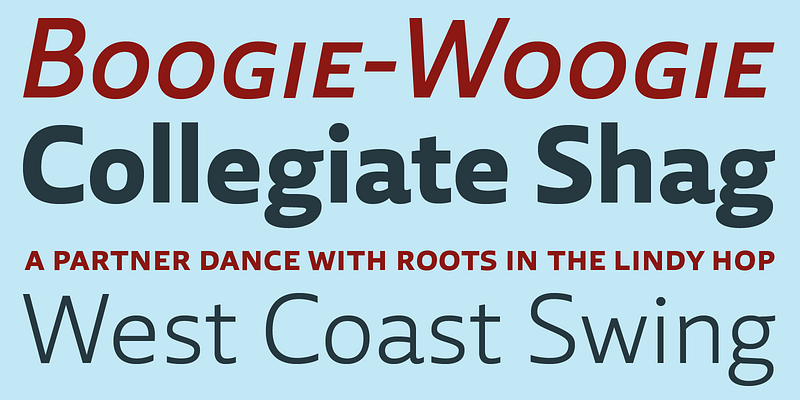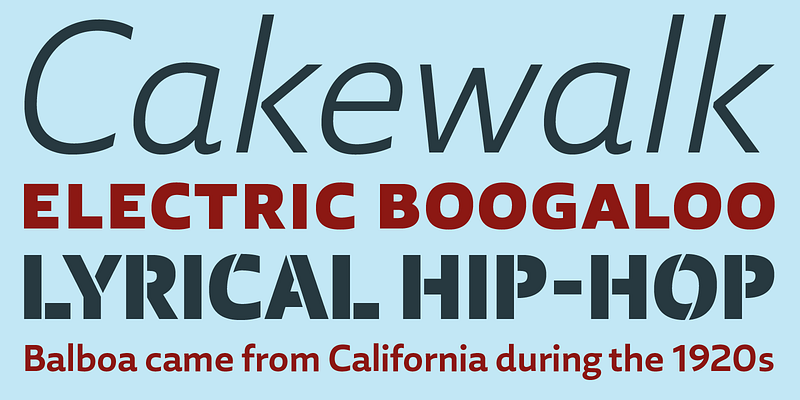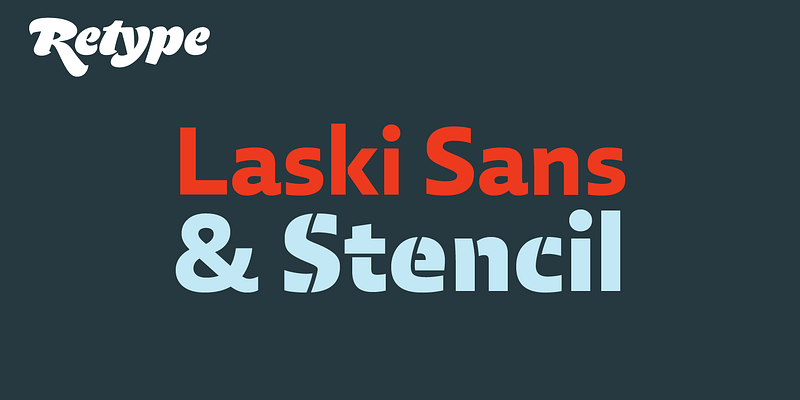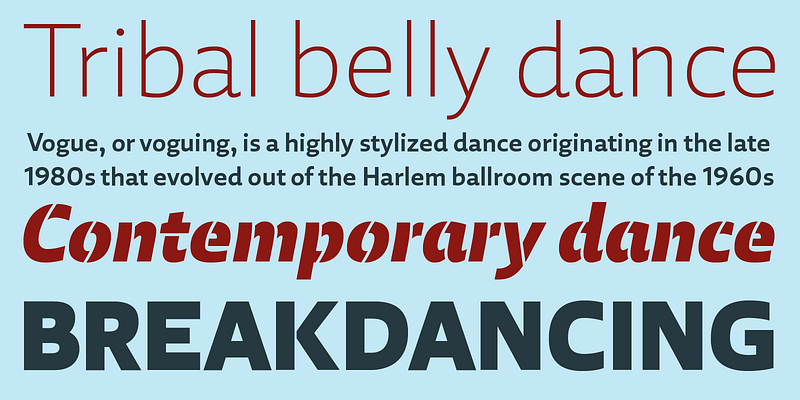
In 2014 Paula Mastrangelo presented her first type family, Laski Slab. Over the last year, Ramiro Espinoza worked to expand the system and the outcome was Laski Sans.
Retype Foundry is a two-person independent digital type foundry based in The Hague. Ramiro Espinoza, who founded the company in 2007, manages it in close collaboration with his partner, editorial designer Paula Mastrangelo. Retype’s catalogue reflects the pair’s interest in editorial design and a keen familiarity with Dutch type history.
Discerning design studios and art directors looking for solid, modern-looking type families will find in Retype a well-crafted and diverse selection of typefaces, many of which have won design awards. The foundry’s work meets even the most exacting requirements for aesthetics, legibility, and originality.